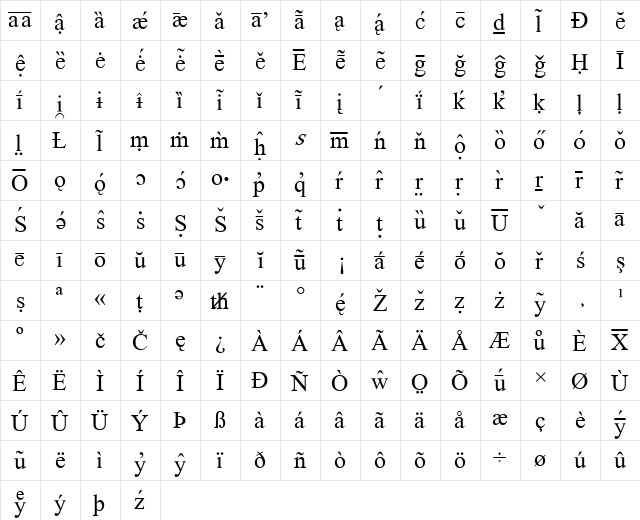
WP Accent Serif Regular
Design Context for WP Accent Serif Typeface
WP Accent Serif carries the refined structure of traditional serif typography, with bracketed terminals and considered proportions that communicate credibility and craft.
Pro Tip: Use WP Accent Serif for editorial body copy and considered headline work. Pair with a neutral sans for UI elements or captions to create a classic hierarchy.